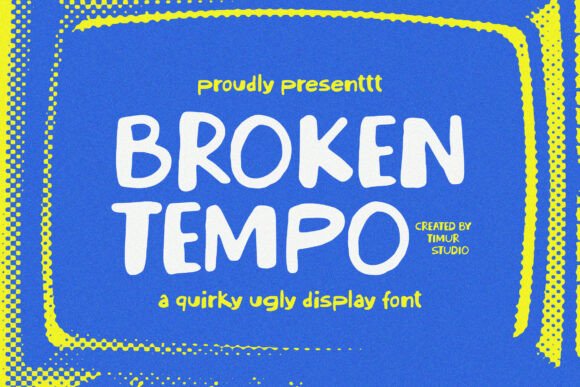
Introducing Broken Tempo Font: A Quirky and Ugly Display Font with a Retro Twist
Are you tired of using the same old fonts in your designs? Do you want to add a touch of personality and whimsy to your posters, album covers, or branding materials? Look no further than Broken Tempo Font, a quirky and hand-drawn display font that’s inspired by vintage player-piano rolls. With its playful irregularities and nostalgic charm, Broken Tempo is the perfect choice for designers who want to add a lively, offbeat rhythm to their work.
The Inspiration Behind Broken Tempo Font
Broken Tempo Font is inspired by the vintage player-piano rolls of the early 20th century. These rolls, which were used to play music on player pianos, had a unique and quirky charm to them. They were often imperfect, with notes that were slightly off-beat or irregular, giving them a human, hand-played feel. This aesthetic is exactly what inspired the creators of Broken Tempo Font to design a font that’s playful, irregular, and full of personality.
What Makes Broken Tempo Font So Unique?
So, what sets Broken Tempo Font apart from other display fonts on the market? For starters, its hand-drawn design gives it a unique, organic feel that’s hard to replicate with digital fonts. The irregularities in the font, such as the varying letter widths and imperfect curves, add to its charm and give it a sense of personality. Additionally, the font’s inspiration from vintage player-piano rolls gives it a nostalgic feel that’s perfect for designs that need a touch of retro flair.
Characteristics of Broken Tempo Font
Broken Tempo Font has a number of characteristics that make it perfect for designers who want to add a touch of whimsy to their work. Some of its key features include:
- Hand-drawn design with a unique, organic feel
- Inspired by vintage player-piano rolls
- Playful irregularities and imperfections
- Nostalgic charm that’s perfect for retro-inspired designs
- Perfect for posters, album covers, and other display materials
Uses for Broken Tempo Font
Broken Tempo Font is a versatile font that can be used in a variety of design applications. Some of the most popular uses for the font include:
- Posters: Broken Tempo Font is perfect for creating eye-catching posters that need a touch of personality.
- Album covers: The font’s nostalgic charm and playful irregularities make it a great choice for album covers that need a retro vibe.
- Branding materials: Broken Tempo Font can be used to add a touch of whimsy to branding materials, such as business cards and letterheads.
- Signage: The font’s bold, display design makes it perfect for signage that needs to stand out.
Tips for Using Broken Tempo Font
Here are a few tips for getting the most out of Broken Tempo Font:
- Use it sparingly: Broken Tempo Font is a bold, display font that’s best used sparingly. Use it for headings or titles, and pair it with a simpler font for body text.
- Experiment with colors: The font’s nostalgic charm works well with a variety of colors, from bold and bright to muted and pastel.
- Play with layout: Broken Tempo Font’s irregularities make it perfect for experimental layouts and designs.
Broken Tempo Font is a quirky and ugly display font that’s perfect for designers who want to add a touch of personality to their work. With its hand-drawn design, playful irregularities, and nostalgic charm, it’s the perfect choice for posters, album covers, and other display materials. Whether you’re looking to add a touch of retro flair to your designs or simply want to stand out from the crowd, Broken Tempo Font is a great choice.
- What is Broken Tempo Font?
- Broken Tempo Font is a quirky, hand-drawn display font inspired by vintage player-piano rolls.
- What makes Broken Tempo Font unique?
- Broken Tempo Font’s unique design, inspired by vintage player-piano rolls, and its playful irregularities and imperfections.
- What can I use Broken Tempo Font for?
- Broken Tempo Font is perfect for posters, album covers, branding materials, and signage that need a touch of personality and whimsy.